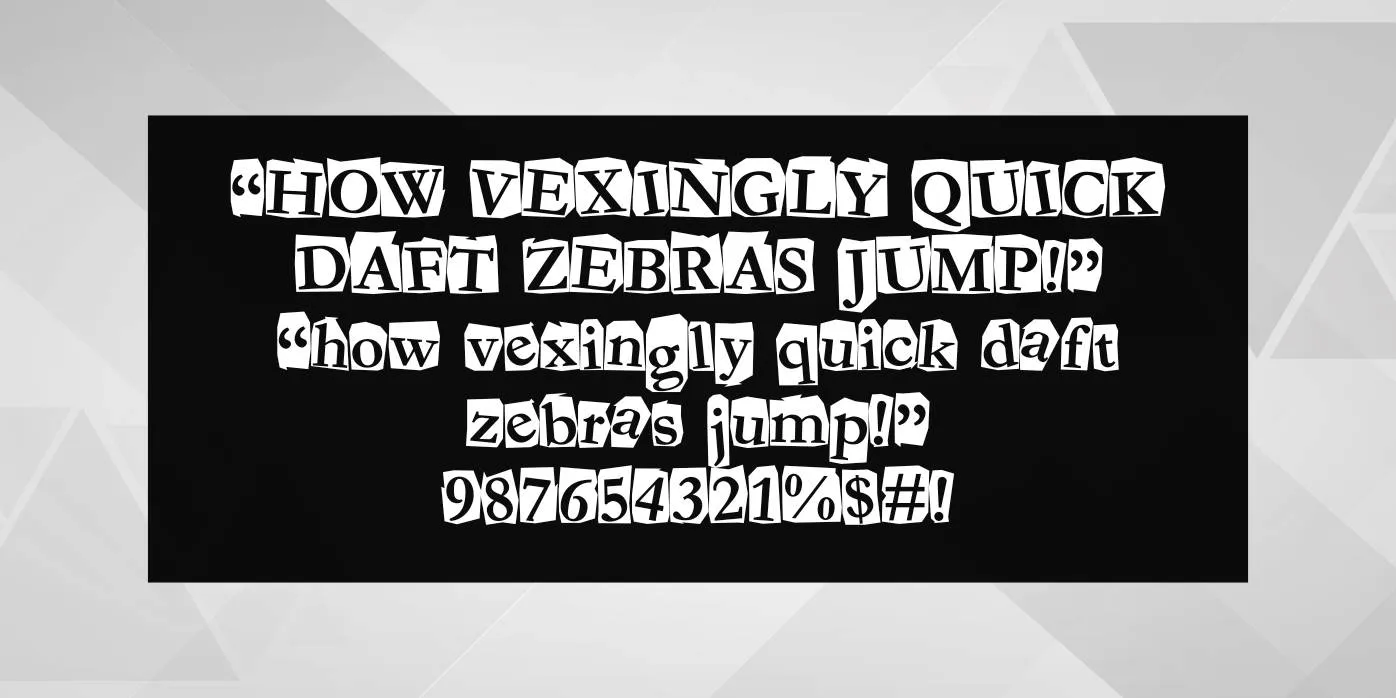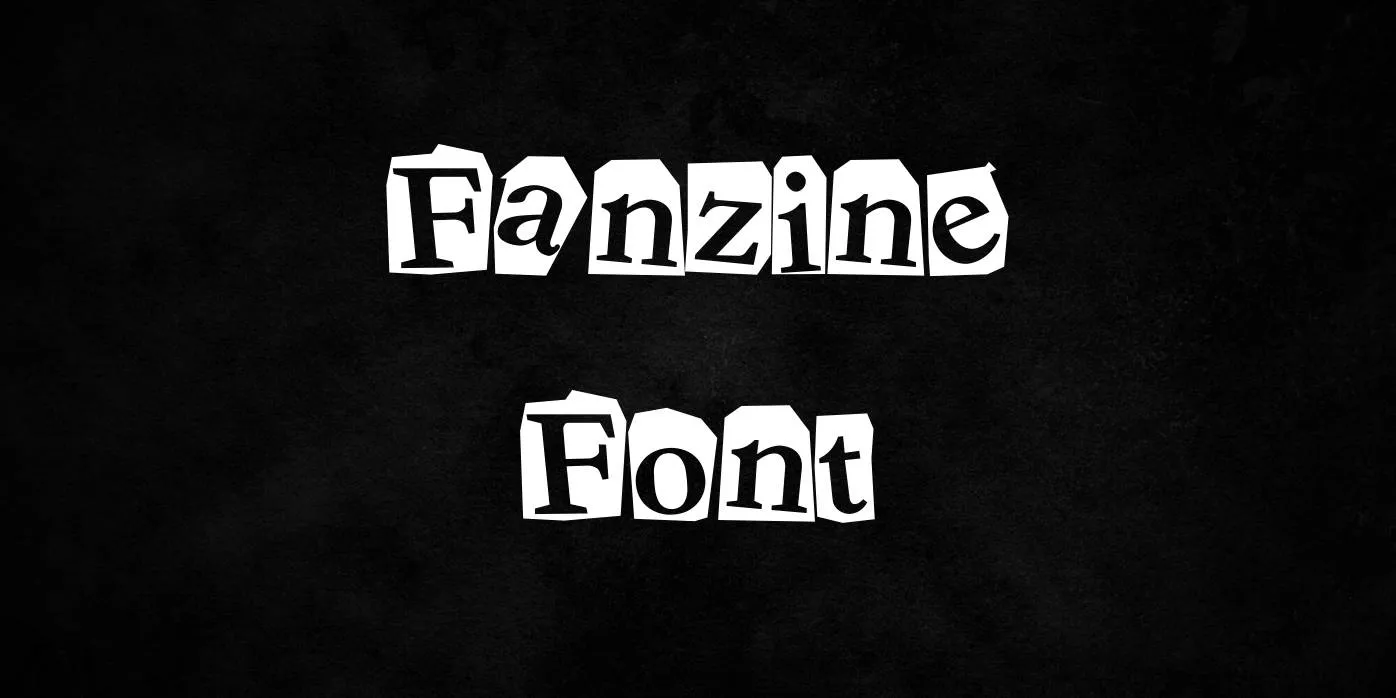
Fanzine Font
Digital Graphic Labs designed this typeface. Fanzine Font is a decorative texture that has the highlighted black colored characters with the white color. The generator tools for this typeface are effortless when you are working on small projects. But when you are working on large projects you do not need to use this tool.